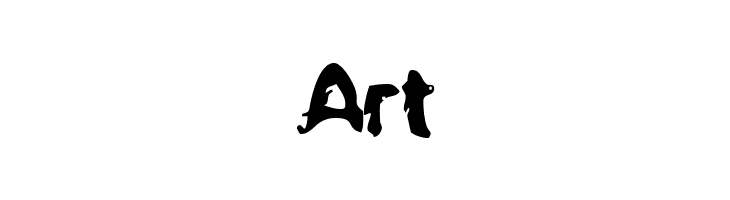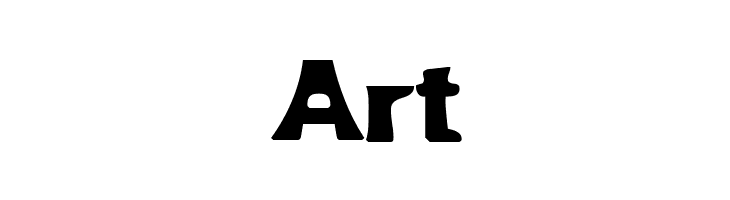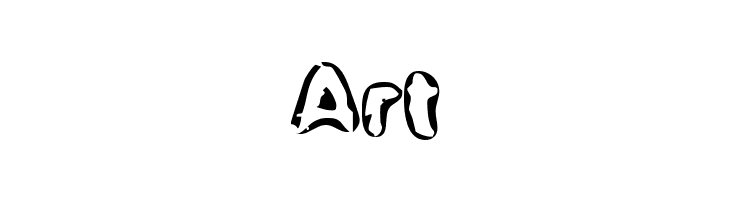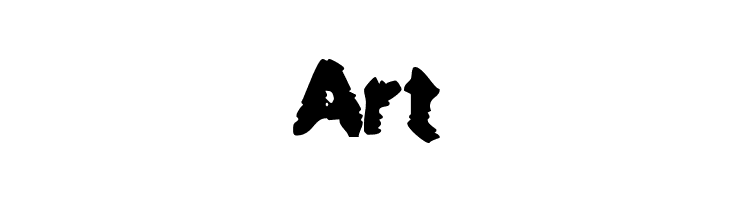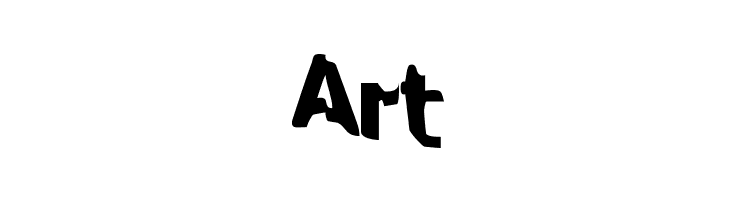
A bold, playful font with a hand-drawn, irregular style.
A bold, playful font with an irregular, splattered pattern within each character.
A bold, distressed font with jagged edges and a chaotic style.
A bold, vintage-style font with a strong, condensed appearance.
A bold, playful outline font with bubble-like characters and rounded edges.
A rugged, distressed font with a bold, textured appearance.
A bold, decorative font with a reptilian, scale-like appearance.
A bold, distressed font with a rugged, grunge-like appearance.
A bold, rugged font with jagged edges and a grungy, distressed style.
A bold, playful font with irregular, organic shapes and thick strokes.